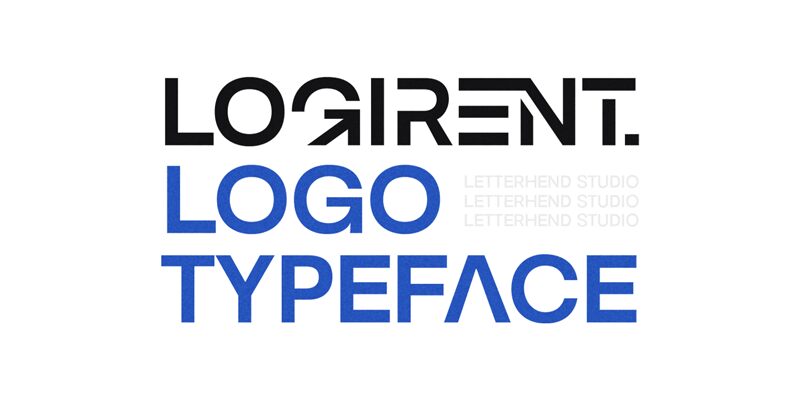
LogirentDemo
Logirent is a unique sans serif font designed by Letterhend Studio. It has a semi-light weight that offers a modern and stylish look. Logirent can be used to create eye-catching titles, logos, and posters. It's also perfect for creating sophisticated designs for websites, magazines, and books. Its versatility makes it suitable for any project that requires an elegant touch.